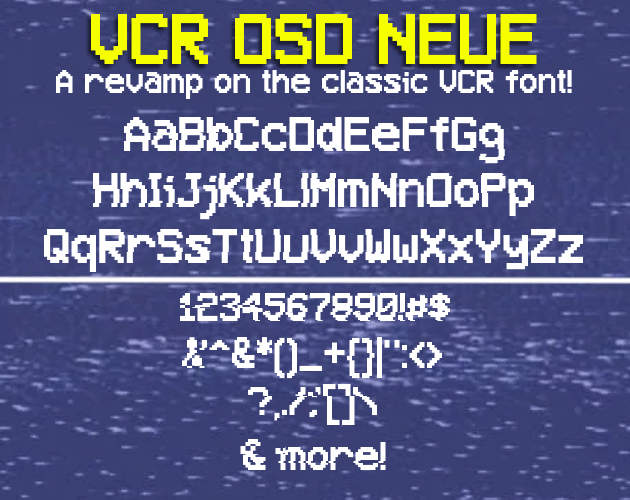
Note of the authorVCR OSD NEUE is a font i made after I started to get annoyed with the kerning (the spacing between letters or characters.) of the letter "i". and while looking at the characters I notice that that the lowercase g, p, q, y, i, and t were hard to work with due to the strange height and kerning problems. (i kept the lowercase a because it has a certain charm to it.)
So I thought "what if someone made a revamped version with differences in the letters?" Then I got the inspiration to make VCR OSD NEUE